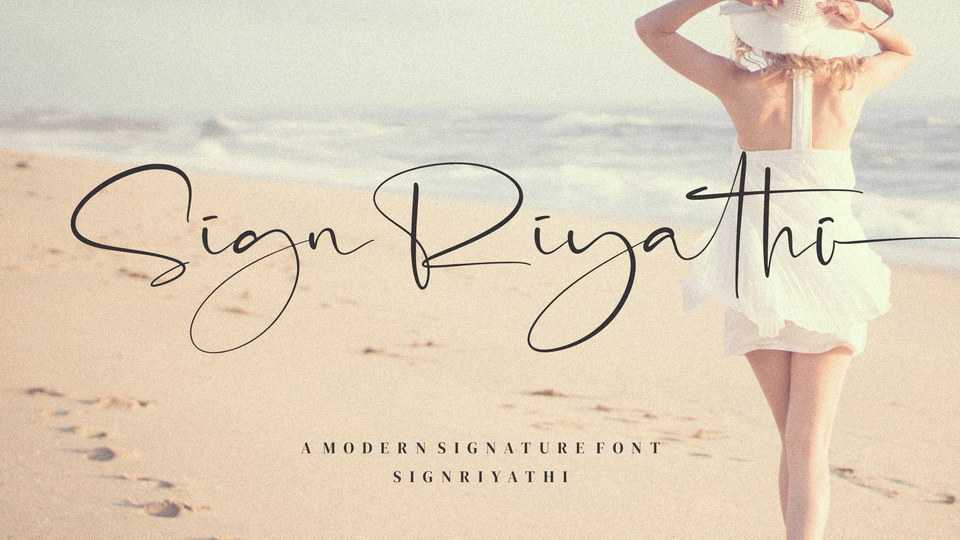
Download Sign Riyathi font, a casual handwritten typeface with a natural and relaxed flow. Sign Riyathi will add a luxury spark to any design project that you wish to create.
Designer: Integritype Studio